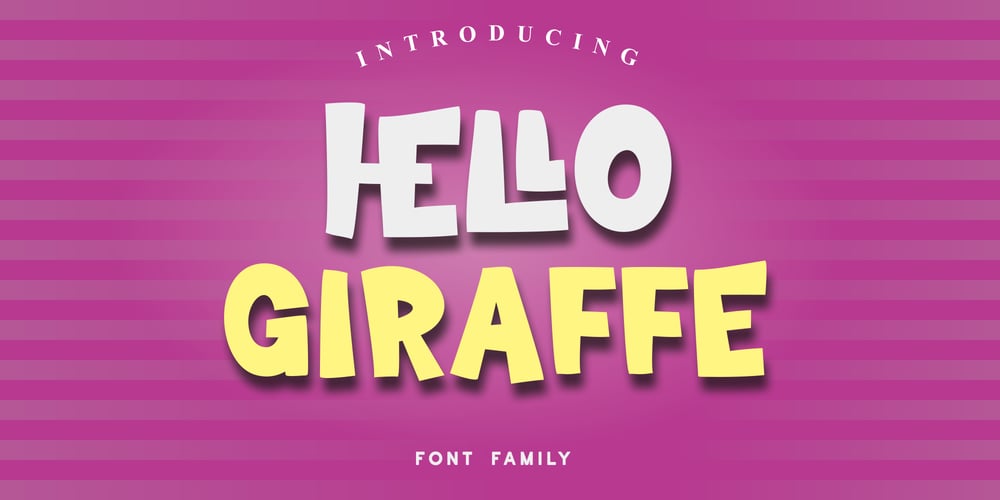
Hello Giraffe
Hello Giraffe font
Hello Giraffe Font Family was designed by Akhmad Afandhi and published by Evo Studio. Hello Giraffe contains 2 styles and family package options. Hello Giraffe font is inspired by the style of letters in comics which have a less serious and fun character. The letters in this font are sans serif with a font character appearance that gives a fun impression and design for children. The Hello Giraffe font is very suitable for creating designs with non-serious concepts, designs for children, book headers, and of course for text in comics.